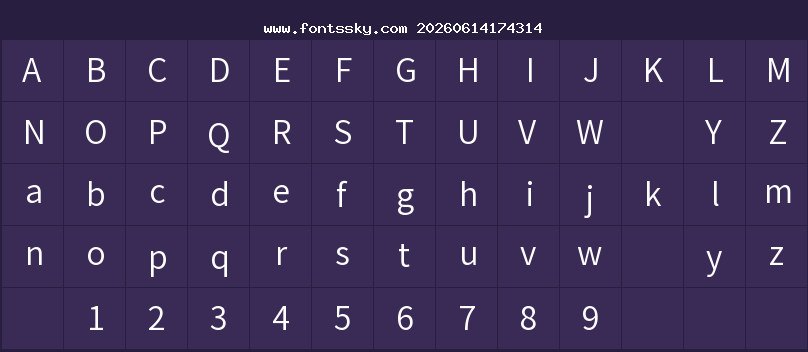
Noto Sans S Chinese DemiLight Preview
• Font Name: Noto Sans S Chinese DemiLight
• Font ID: Noto Sans S Chinese DemiLight
• Full Font Name: Noto Sans S Chinese DemiLight
• PostScript Name: Noto Sans S Chinese DemiLight
• Character Count: 59
About Noto Sans S Chinese DemiLight.ttf
Noto Sans S Chinese DemiLight.ttf is a modern, elegant sans-serif font designed for ultimate readability and visual harmony. Perfect for branding, headlines, web design, and print materials.